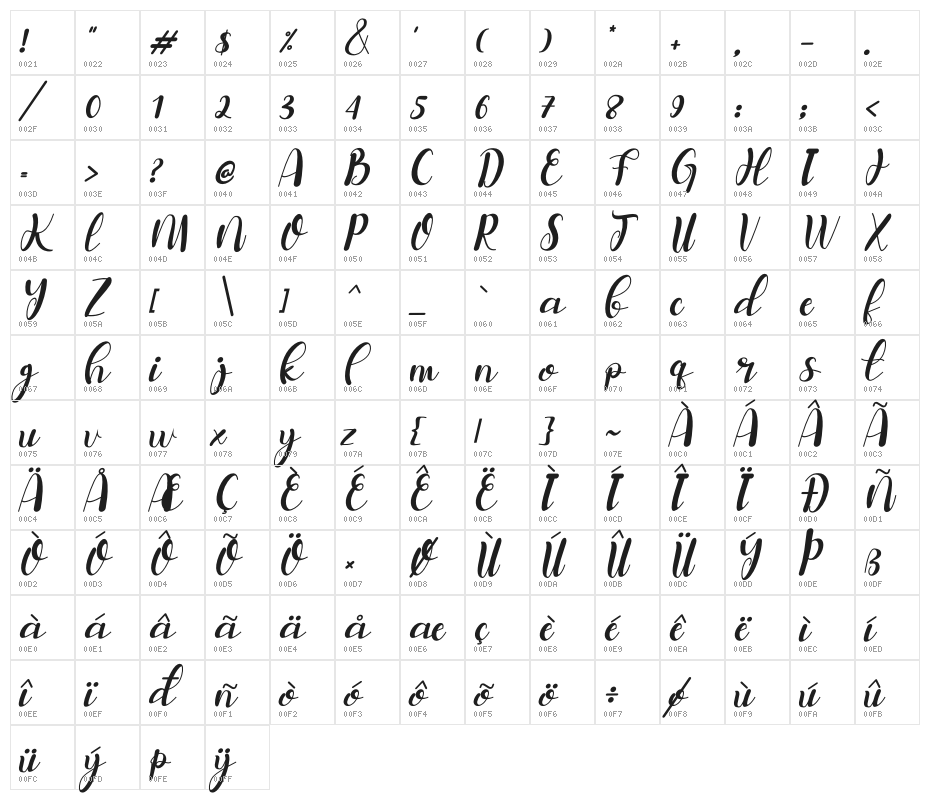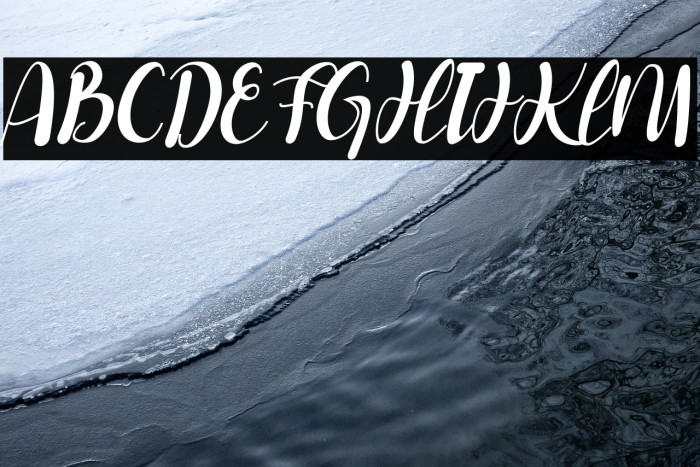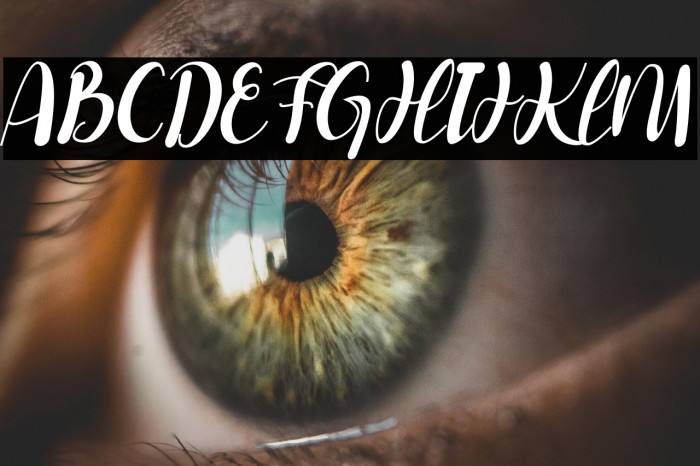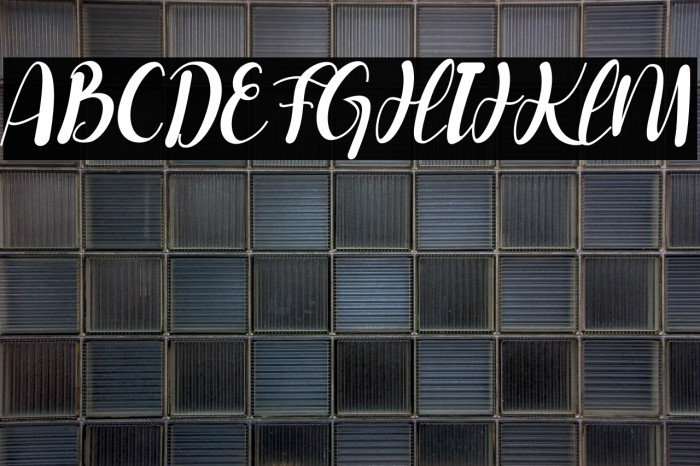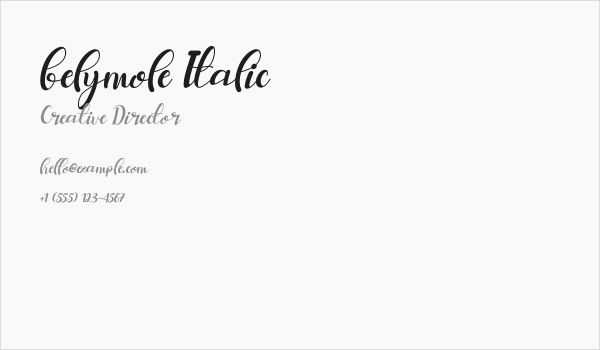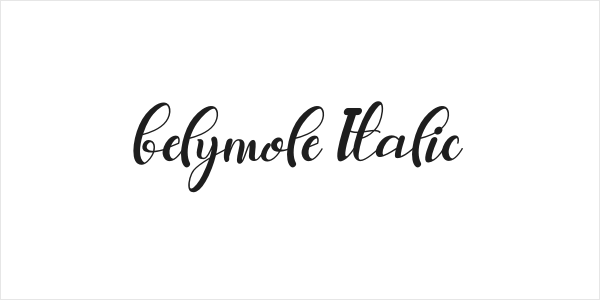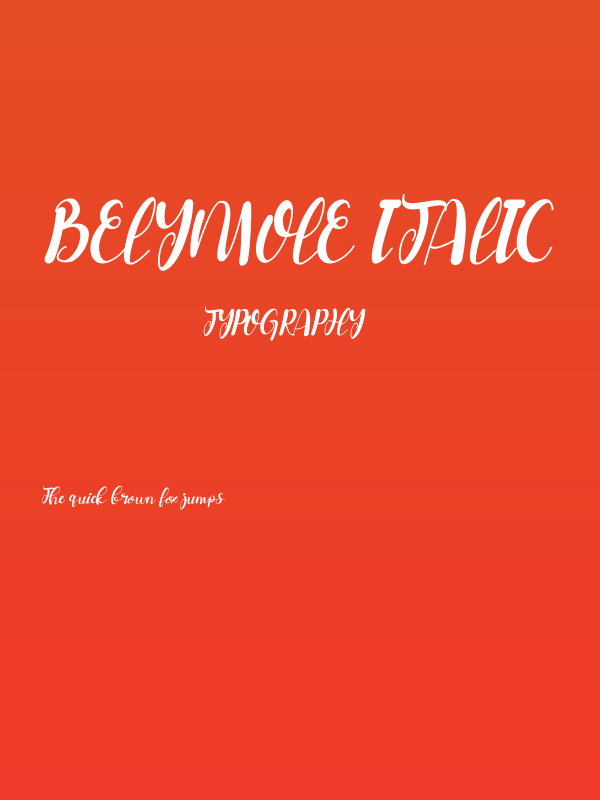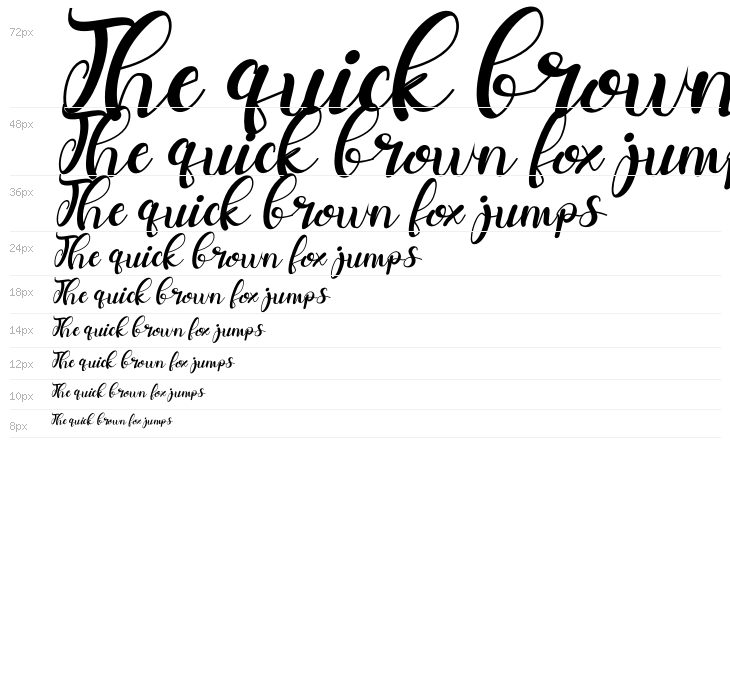
belymole Italic Font
belymole Italic Description
This font exudes a flowing, elegant script style with a distinctly italicized slant, giving it a sense of motion and grace. The characters are interconnected, creating a seamless and fluid appearance. The uppercase letters are bold and prominent, while the lowercase letters maintain a consistent flow, enhancing readability. The numerals are styled to match the script's elegance, and the special characters are crafted with the same attention to detail. This font's design is both sophisticated and artistic, making it suitable for a variety of creative applications.